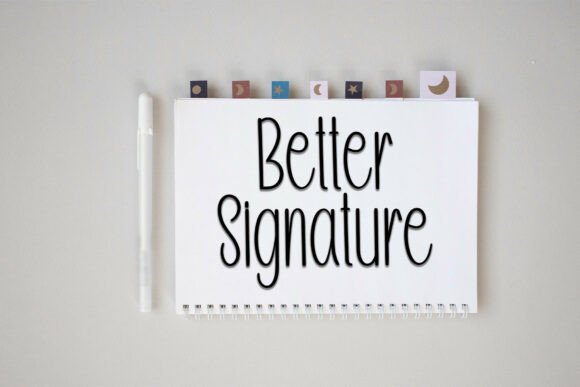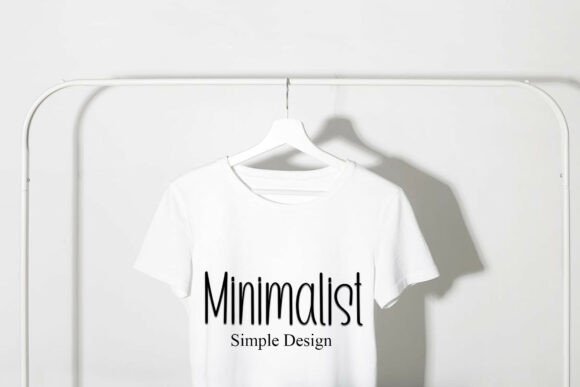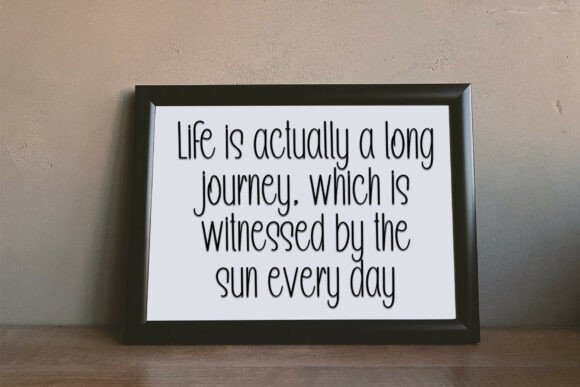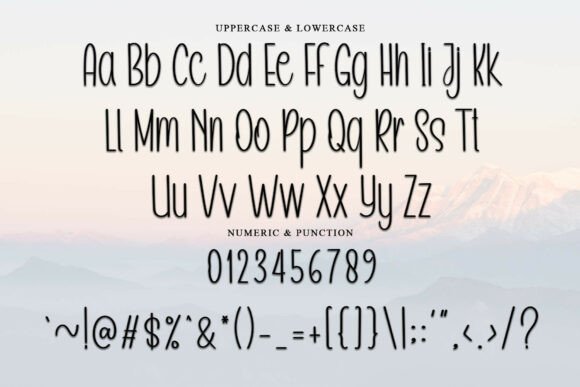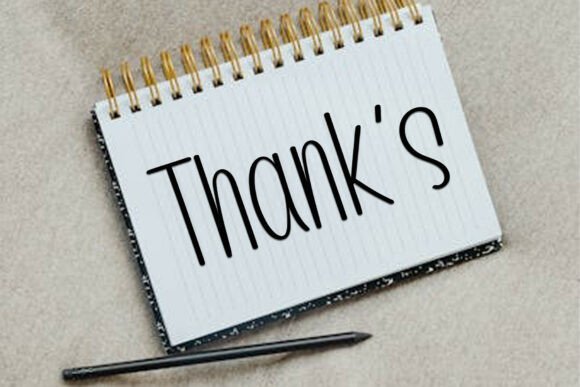
Introducing August Font: The Epitome of Casual Handwritten Elegance
In the realm of typography, few fonts manage to convey the warmth and authenticity of everyday handwriting as effortlessly as August Font. This casual handwritten font has been crafted to bring a personal and friendly touch to a wide array of design projects, from quotes and branding to packaging and social media posts. With its smooth strokes, relaxed curves, and naturally balanced letterforms, August Font is the perfect choice for designers and crafters looking to infuse their work with a clean and approachable style.
The Characteristics of August Font
August Font boasts a unique set of characteristics that set it apart from other fonts in the same category. Its smooth strokes and relaxed curves give it a fluid, natural appearance that is reminiscent of handwriting. The letterforms are carefully balanced to ensure that the font is not only aesthetically pleasing but also highly readable. This makes August Font incredibly versatile, suitable for a wide range of applications where both style and clarity are paramount.
Ideal Applications for August Font
The versatility of August Font makes it an excellent choice for various design projects. Here are some of the ideal applications where August Font truly shines:
- Quotes: Add a personal touch to inspirational quotes, making them more relatable and engaging.
- Branding: Enhance your brand’s identity with a font that exudes warmth and approachability.
- Packaging: Give your product packaging a friendly and inviting look that stands out on store shelves.
- Social Media Posts: Elevate your social media content with a font that adds a personal and friendly touch to your posts.
The Benefits of Using August Font
Choosing August Font for your design projects comes with a multitude of benefits. Here are some of the key advantages:
- Readability: August Font is designed to be highly readable, ensuring that your message is conveyed clearly and effectively.
- Charm: The font’s casual, handwritten style adds a charm to your designs, making them more engaging and memorable.
- Versatility: With its effortless flow and versatile character, August Font can be used across a wide range of design projects.
- Ease of Use: August Font is easy to integrate into your designs, making it a convenient choice for designers of all skill levels.
To make the most out of August Font, here are some tips for designers and crafters:
- Pair it with Other Fonts: Experiment with pairing August Font with other fonts to create visually appealing contrasts and hierarchies.
- Adjust Letter Spacing: Adjust the letter spacing to enhance readability and ensure a natural flow.
- Use it Consistently: Use August Font consistently across your design project to maintain a cohesive and harmonious look.
- Experiment with Colors: Don’t be afraid to experiment with different colors to find the perfect match for your design.
August Font is a beautiful, casual handwritten font that brings a touch of warmth and authenticity to any design project. Its smooth strokes, relaxed curves, and naturally balanced letterforms make it the perfect choice for designers and crafters looking to add a personal and friendly touch to their work. With its versatility, readability, and charm, August Font is sure to become a staple in your font collection.
Whether you’re working on a branding project, creating quotes, designing packaging, or crafting social media posts, August Font is an excellent choice. Its effortless flow and versatile character make it easy to use and integrate into your designs. So why wait? Discover the charm of August Font and elevate your designs to a whole new level.